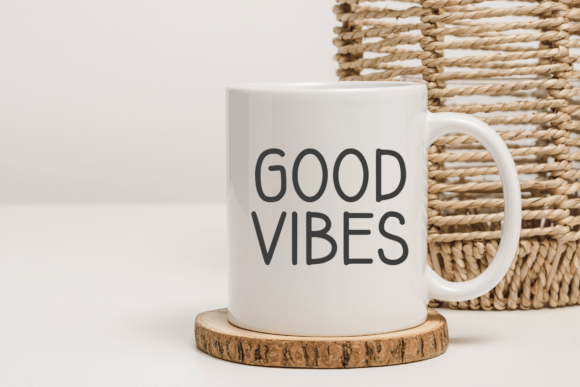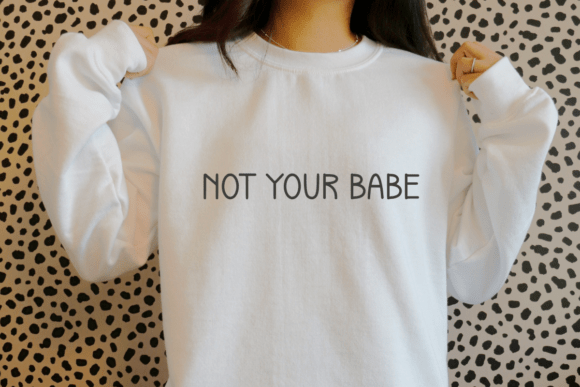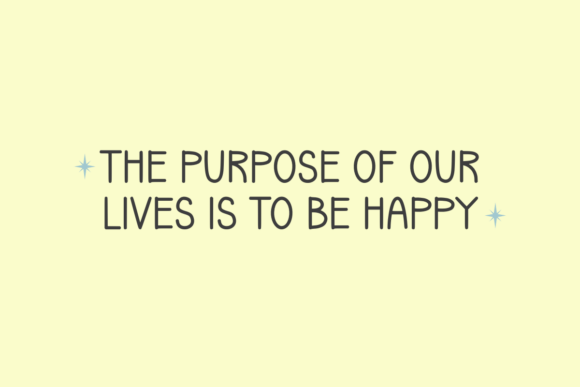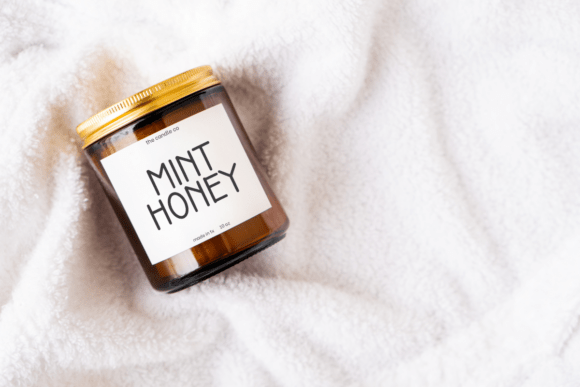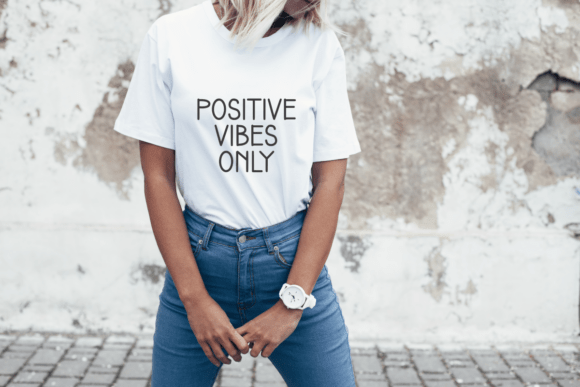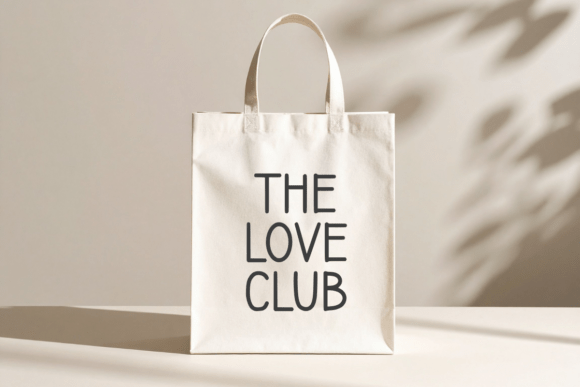
Introducing Feast Time Font: The Perfect Handwritten Style for Crafty Projects
Are you a crafter, designer, or DIY enthusiast looking for a font that can add a personal touch to your projects? Look no further than Feast Time Font, a cute sans serif handwriting font designed to bring a soft, friendly, and natural look to your creations. In this article, we’ll explore the features and benefits of Feast Time Font, and how it can elevate your craft projects, planners, stickers, kids’ worksheets, classroom printables, and DIY designs.
The Characteristics of Feast Time Font
Feast Time Font is a handcrafted font that boasts simple strokes and smooth curves, making it easy to cut using popular cutting machines like Cricut and Silhouette. Its soft and friendly appearance is perfect for crafting moms who love adorable handwritten styles. The font’s natural look and feel make it an excellent choice for a variety of projects, from quotes and greeting cards to kids’ labels and coloring pages.
Ideal Uses for Feast Time Font
Feast Time Font is an incredibly versatile font that can be used for a wide range of projects, including:
- Quotes and Greeting Cards: Add a personal touch to your inspirational quotes and greeting cards with Feast Time Font’s warm and friendly appearance.
- Kids’ Labels and Worksheets: Create engaging and fun learning materials for kids with Feast Time Font’s playful and approachable style.
- Coloring Pages and Playful Graphic Projects: Bring your coloring pages and graphic projects to life with Feast Time Font’s smooth curves and simple strokes.
- Bullet Journals and Scrapbooks: Add a touch of personality to your bullet journals and scrapbooks with Feast Time Font’s handcrafted feel.
- Craft Projects and DIY Designs: Use Feast Time Font to create unique and eye-catching craft projects, such as stickers, signs, and decorations.
Why Choose Feast Time Font?
So, what sets Feast Time Font apart from other fonts? Here are just a few reasons why crafters and designers love this font:
- Easy to Read and Cut: Feast Time Font’s simple strokes and smooth curves make it easy to read and cut, even for beginners.
- Versatile and Adaptable: This font can be used for a wide range of projects, from kids’ materials to adult-oriented designs.
- Handcrafted Feel: Feast Time Font’s handcrafted appearance adds a personal touch to your projects, making them stand out from the crowd.
- Perfect for Cricut and Silhouette: This font is optimized for use with popular cutting machines, making it easy to incorporate into your crafting workflow.
Tips for Using Feast Time Font
To get the most out of Feast Time Font, here are a few tips to keep in mind:
- Experiment with Sizes and Colors: Try out different sizes and colors to see how Feast Time Font looks in different contexts.
- Pair with Other Fonts: Combine Feast Time Font with other fonts to create unique and interesting visual effects.
- Use for Titles and Headings: Feast Time Font’s bold and playful appearance makes it perfect for titles and headings.